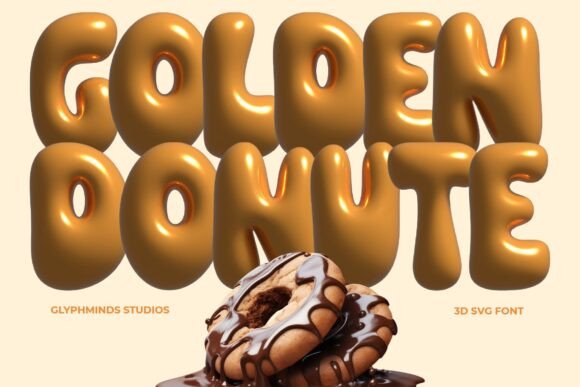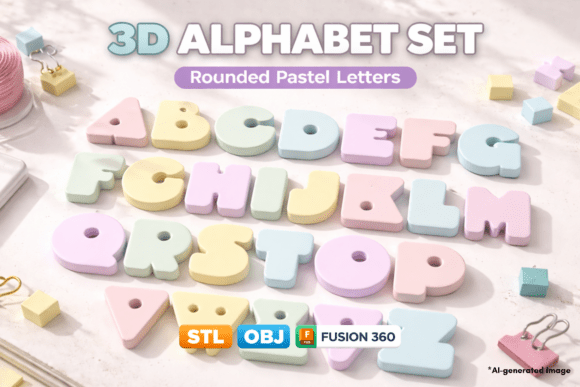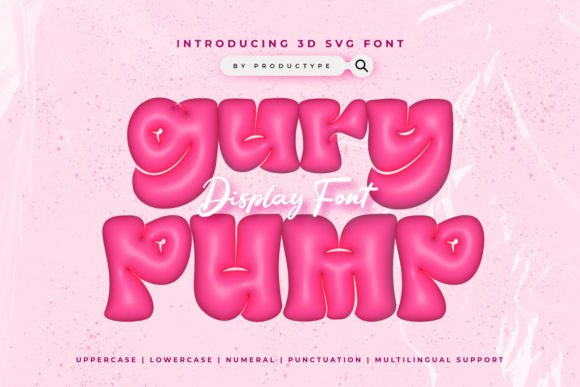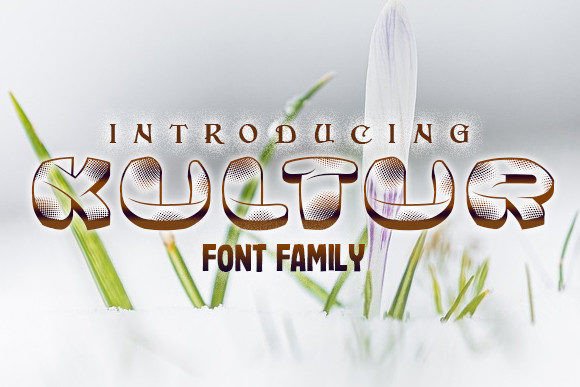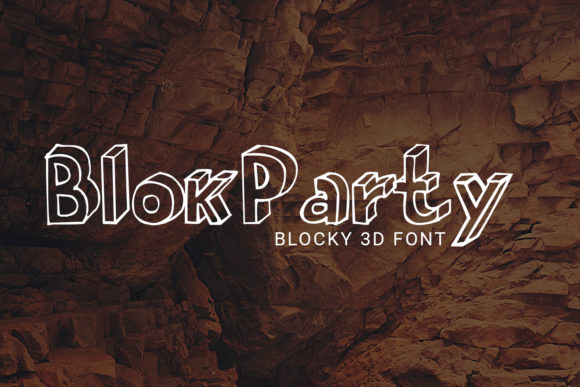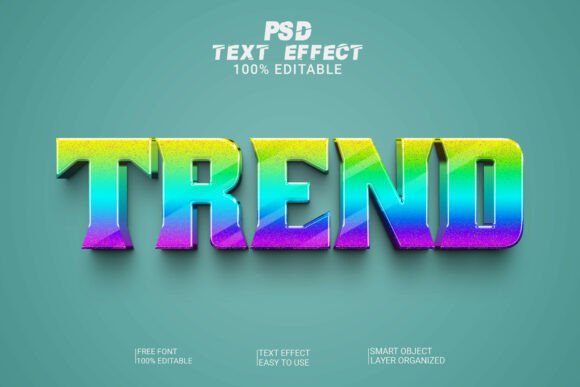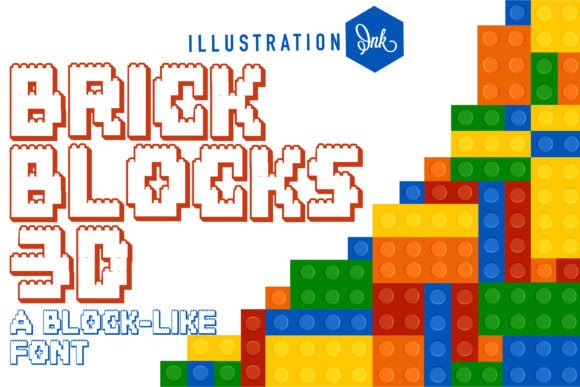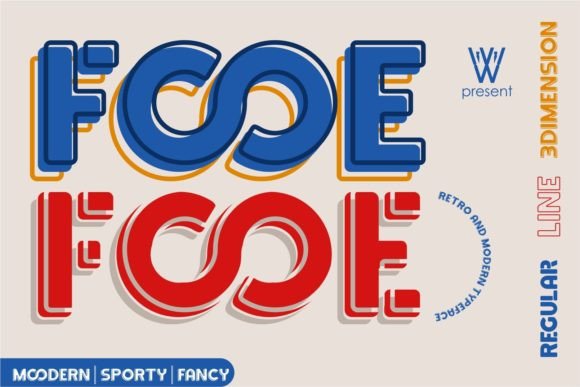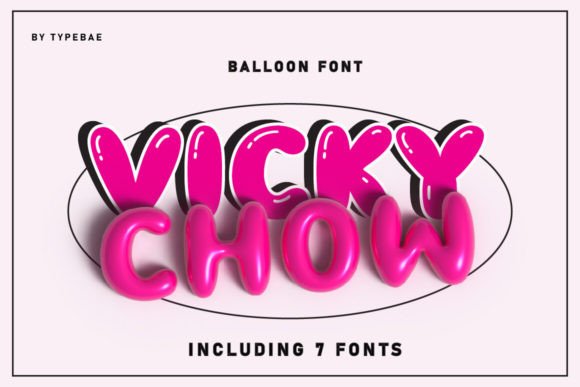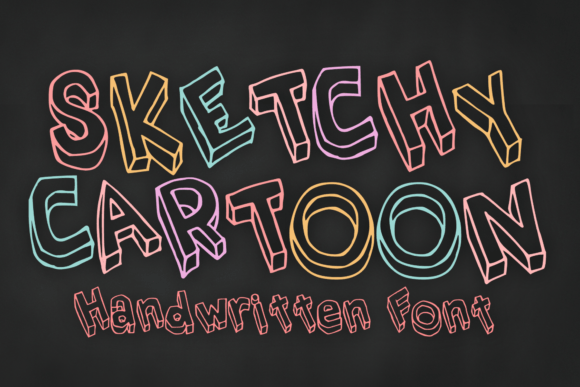
See how these ready-to-use 3D typefaces add instant punch, polish, and personality to visuals while they’re still free to grab.
This handpicked TOP 92 is a stash of punchy 3D fonts, SVG alphabets, and editable text effects that add instant depth to any layout. From glossy candy letters to gritty graffiti, each file is made to drop straight into your design tools with minimal tweaking and maximum visual payoff.
✨ DECORATIVE
1. Golden Donut 3D SVG Font
Glossy donut-style 3D SVG letters with rich shine. Bold, playful typography with premium depth.
2. Rounded Hanging Alphabet Letters 3D Print Model Set
Smooth rounded uppercase alphabet with a modern hanging-sign look. Includes STL, OBJ, and editable F3D files.
3. Gury Pump 3D SVG Font
Mesmerizing 3D SVG font with realistic depth, rich color, and shadows. Includes detailed characters that add texture and impact.
4. Kultur 3D Decorative Font Family
Stunning 3D decorative letterforms with bold depth. Includes a font family built for banners, posters, and postcards.
5. BlokParty 3D Block Font
Blocky 3D letterforms with a delicate charm. Includes a distinctive display alphabet for bold headlines.
6. Editable 3D Font Style Text Effect
Editable 3D text effect in layered PSD format. Smart Object editing delivers high-quality depth fast.
7. Brick Blocks 3D Font
3D block-style letters with a colorful brick texture. Includes a full alphabet with playful stacked depth.
8. Fooe Fooe Modern Decorative Typeface
Modern decorative typeface with bold contemporary character. Includes regular, line, and 3D styles.
9. Vicky Chow Balloon 3D Font
Chubby 3D balloon letterforms bring a cute, cheerful impact. Includes a full playful font set for bold, happy designs.
10. Sketchy Cartoon 3D Handdrawn Font
Playful 3D handdrawn letterforms with a bold, friendly feel. Includes a versatile cartoon-style font.
11. Obsidian Flex 3D Glossy Color Bitmap Font
Smooth 3D bitmap letters with a glossy, reflective, dark-colorful vibe. Includes OpenType-SVG font plus transparent PNG set.
12. Pluffy Loon Balloon Display Font
Bold balloon-style letters with glossy highlights create a lively 3D look. Includes a full alphabet in a playful display font.
13. Refraction Ray 3D Glass Texture Font
Smooth, rounded 3D letters glow with colorful refraction. Includes a full font set with abstract glass texture.
14. School Kits Playful Color Font
Playful multicolor font with a cute, friendly vibe. Ideal for book covers, cards, and cheerful designs.
15. Rainbow Orb 3D Glass Rainbow Bitmap Font
Vivid 3D rainbow letters refract through glossy glass ellipses. Includes OpenType-SVG font and transparent PNGs.
16. Mothers Day 3D Color Font
Sweet 3D OpenType-SVG color bitmap font with standout letterforms. Includes OTF and transparent PNG set.
17. Spectra Fold 3D Glass Bitmap Color Font
Smooth rounded 3D letters built from shiny folded glass layers. Includes OpenType-SVG color font and transparent PNGs.
18. Jewel Gift 3D Gold & Silver Color Font
3D gold-and-silver OpenType-SVG bitmap font with jeweled texture. Includes high-res PNG alphabet set.
19. Comunismo 3D Decorative Font
Bold 3D decorative letterforms with striking depth. Includes a versatile typeface for varied design looks.
20. Silver 3D Decorative Font
Striking 3D metallic letterforms with a sleek silver finish. Includes a decorative font ideal for logos, banners, and flyers.
21. Fox Amina Cute Color Font
A playful color font with hand-painted charm and rich texture. Includes an alphabet PNG set for extra design variety.
22. Grigio 3D Color Cartoon Font
Casual 3D color type with a joyful, cartoon feel. Includes an OpenType-SVG font for vibrant lettering.
23. Floating Drop 3D Bubble Liquid Bitmap Font
Glassy 3D letters with bubbles, transparency and refraction. Includes OpenType-SVG font plus hi-res PNGs.
24. Gunko Street 3D Graffiti Font
Daring 3D graffiti lettering with sharp edges and bold shadow depth. Includes OTF and TTF files for crisp, readable impact.
25. Golden Donute 3D SVG Font
Glossy donut-inspired 3D SVG lettering with premium shine. Bold, playful characters add instant visual impact.
26. Delicious Treat 3D Jelly Candy Font
3D jelly-candy bitmap font with sugar-coated shine. OpenType-SVG plus full-res PNG letters.
27. High School Notebook 3D Doodle Font
3D doodled letterforms echo classic notebook scribbles. Playful, nostalgic characters add quirky depth.
28. Sweet Honey 3D Pink Metallic Font
Cute 3D pink metallic lettering with a sleek modern shine. Includes color bitmap OTF and optional PNGs.
29. Fox Limber 3D Color Font
Playful 3D color letters with a cute, warm vibe. Includes an Alphabet Doodle PNG bonus set.
30. Glass Marbles 3D Glossy Color Bitmap Font